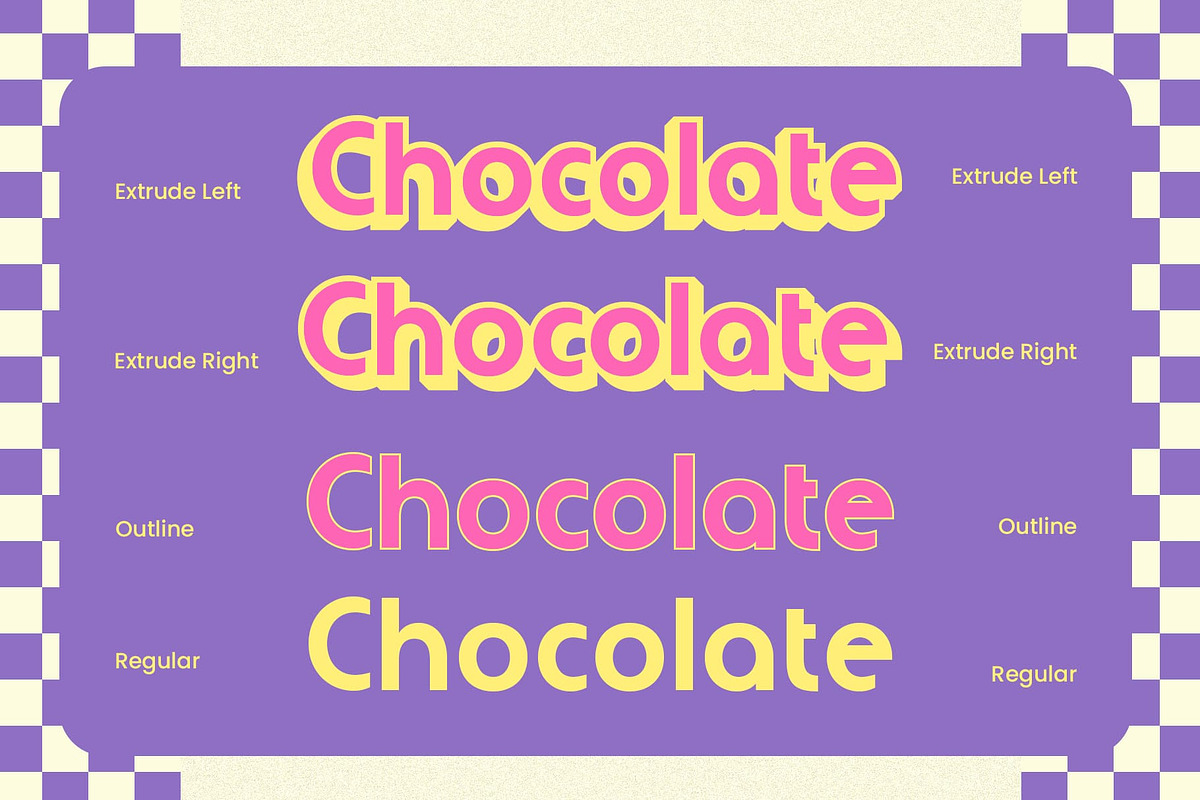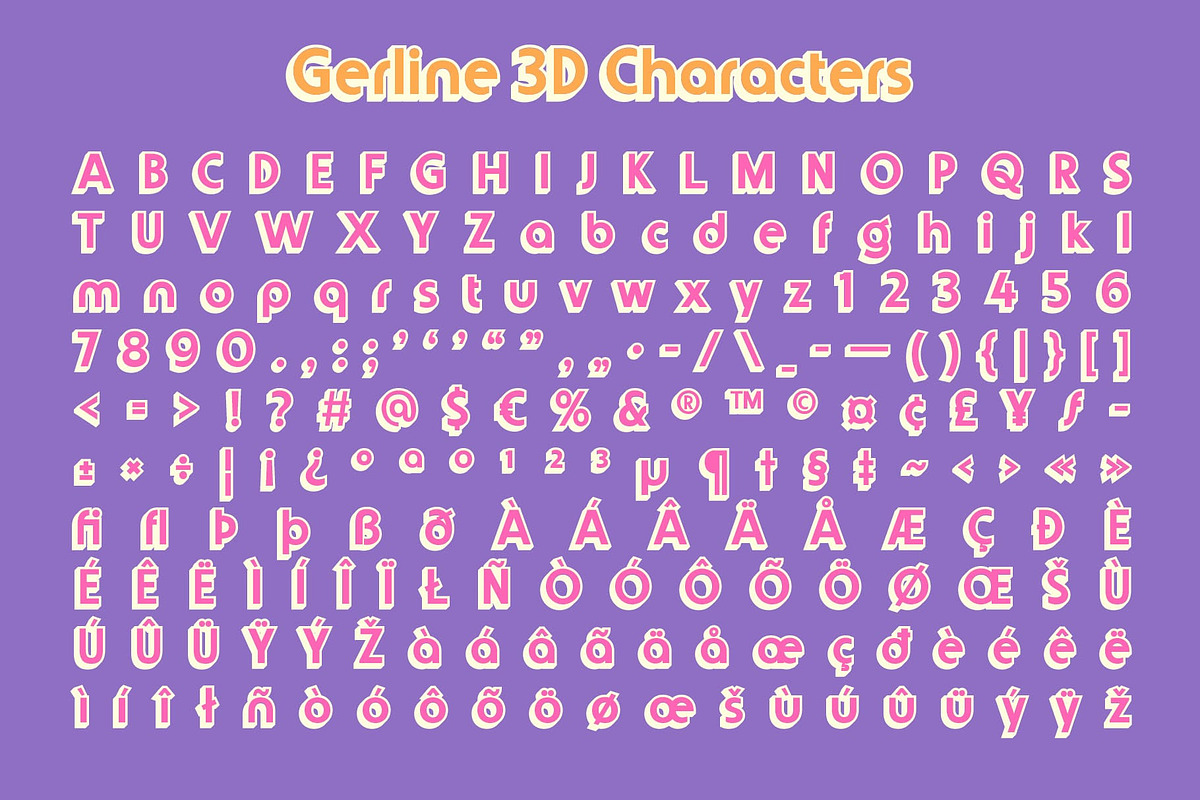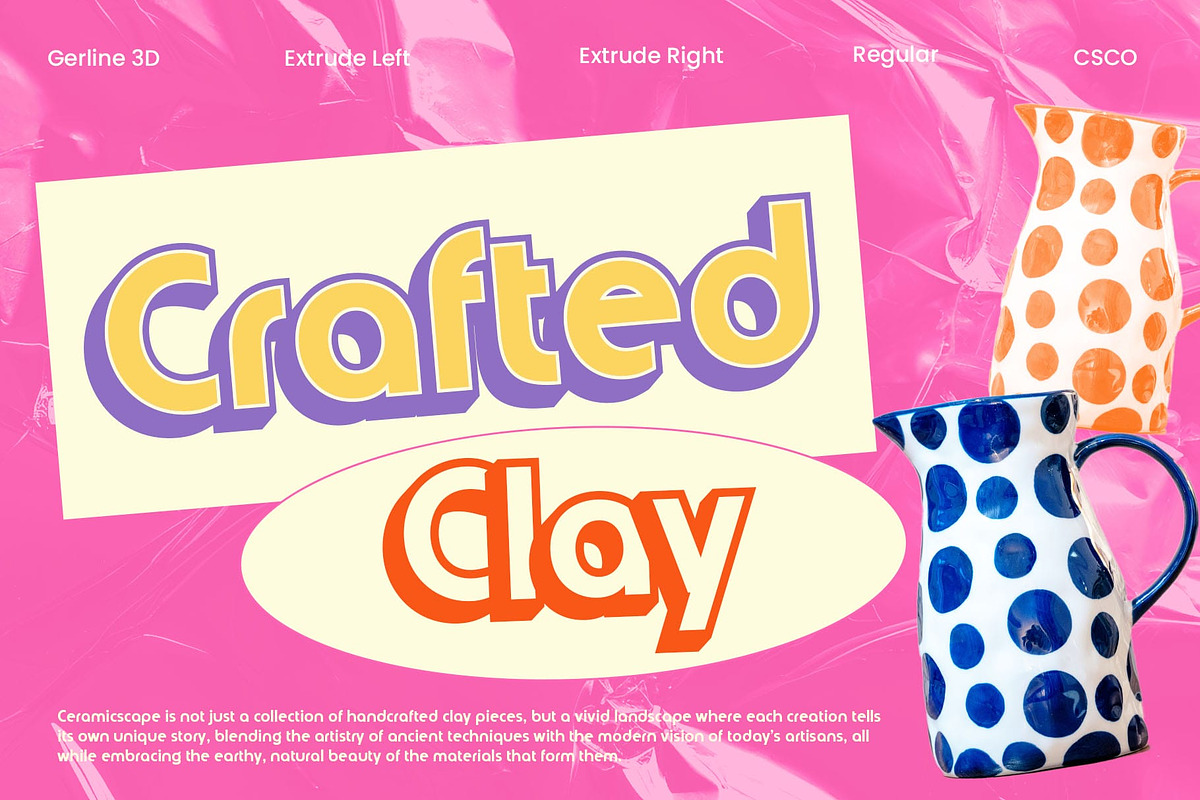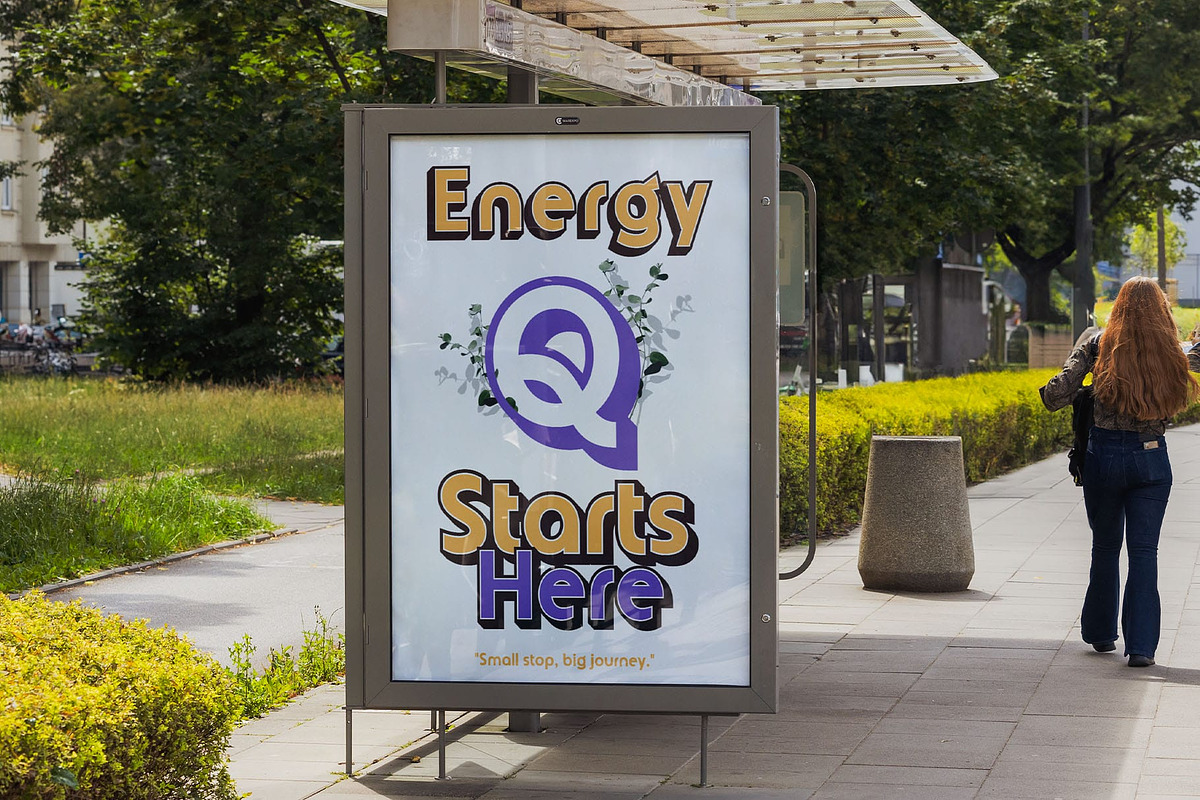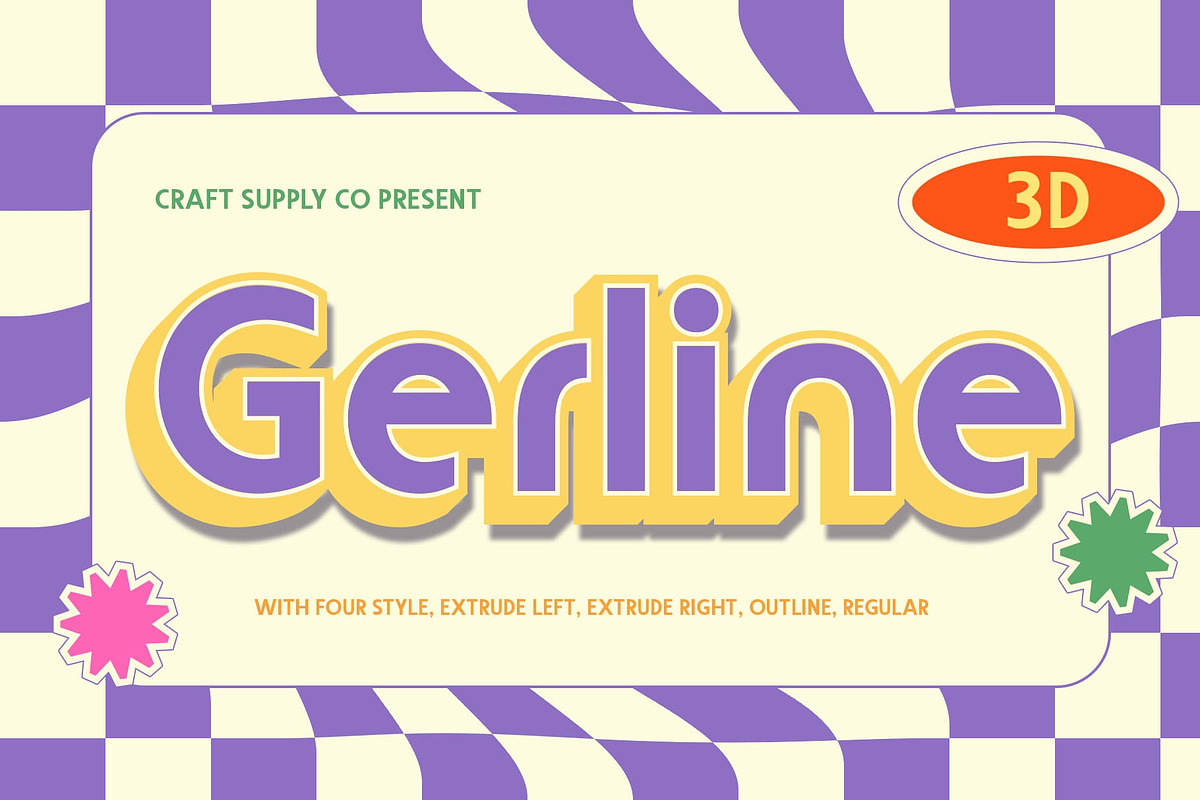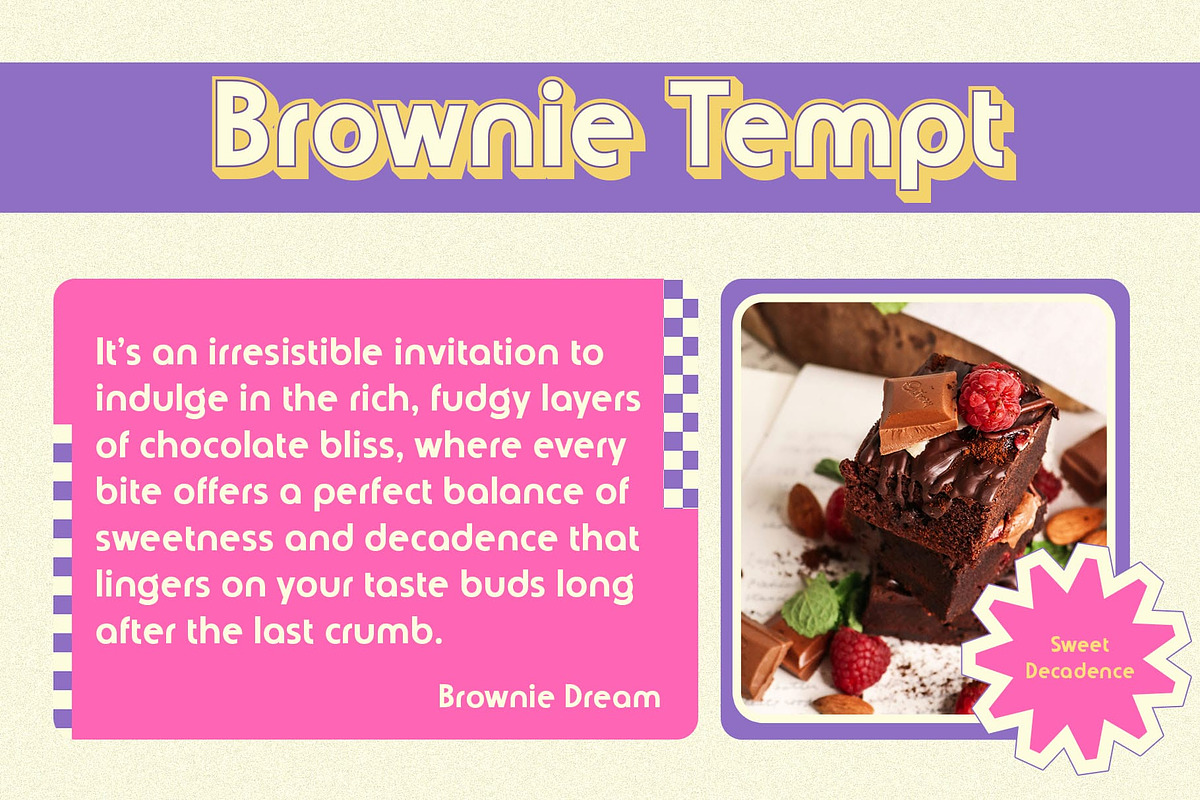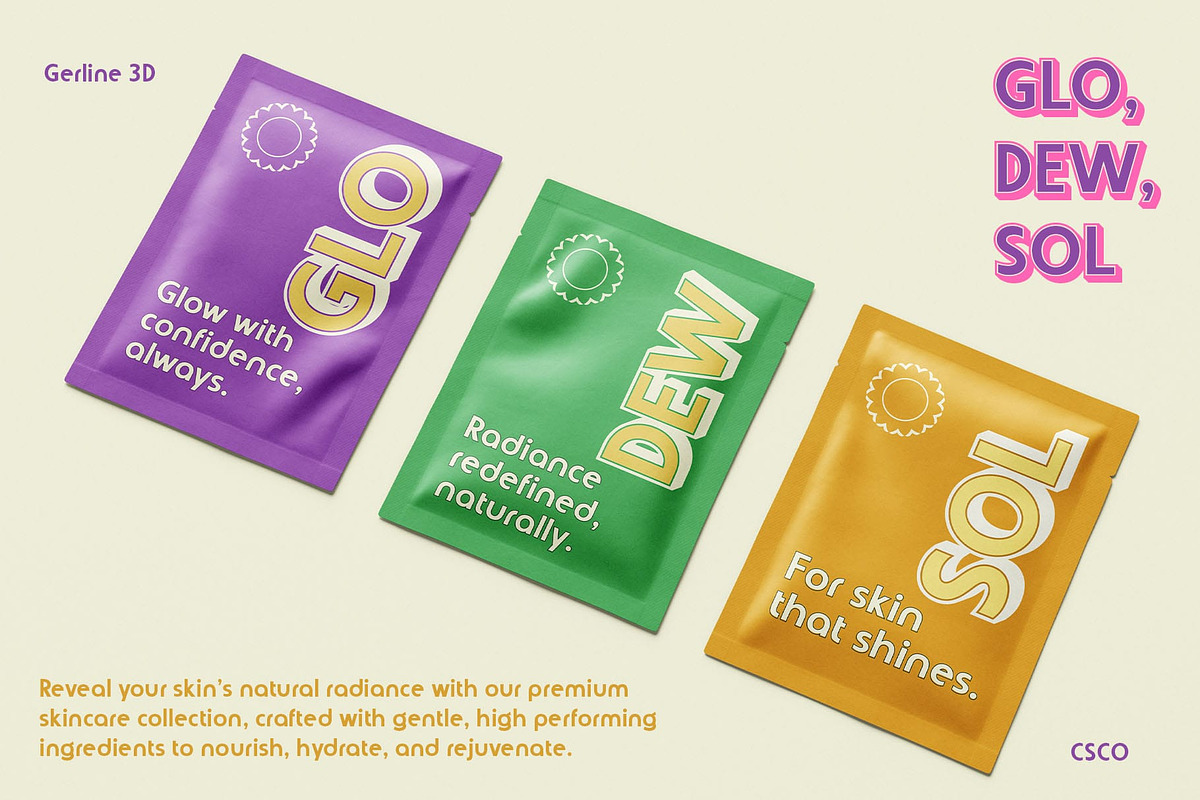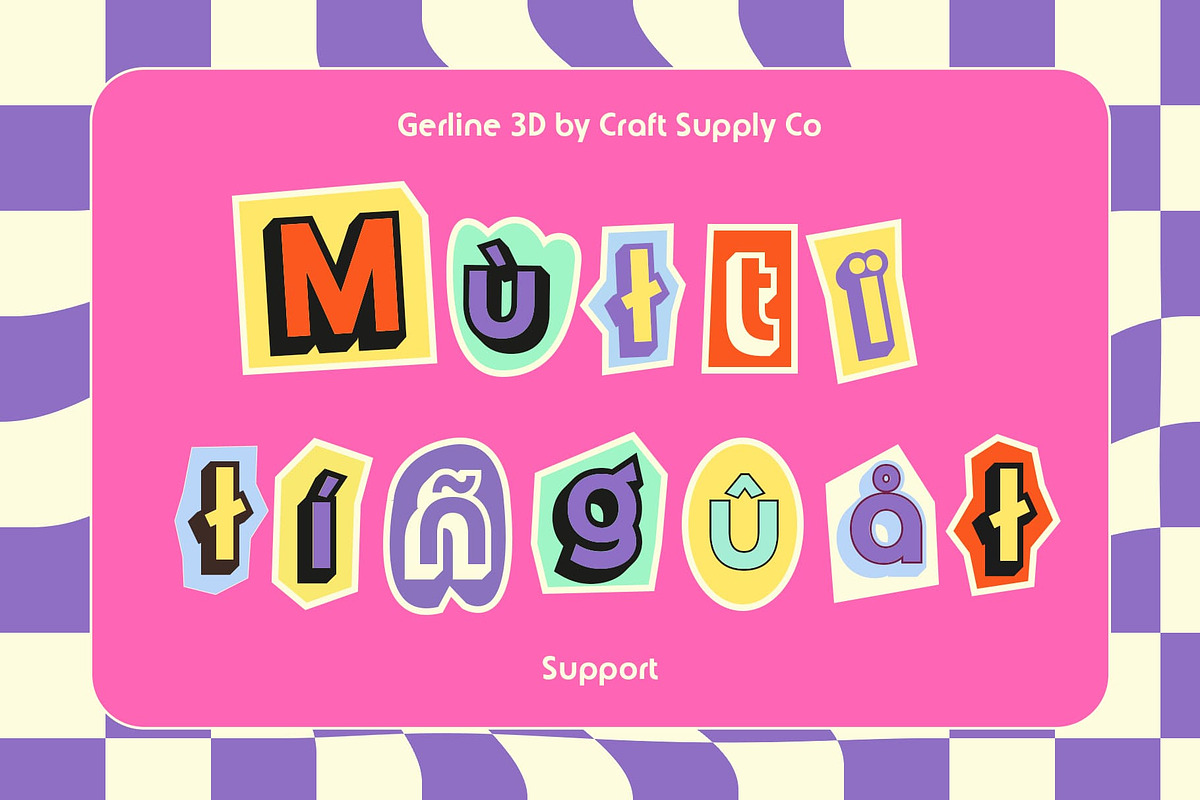
Gerline 3D
Gerline 3D Font: A Modern, Geometric Sans-Serif Font with Depth
Contemporary Geometric Design with Clean Structure Gerline 3D is a modern sans-serif font that showcases a contemporary, geometric shape. The clean lines and structured form create a minimalist yet highly trendy design, exuding a sense of precision and modernity. Its symmetrical letterforms contribute to a balanced and professional appearance, making it ideal for projects that require a sleek and stylish visual.
Dynamic 3D Effect for Visual Depth The 3D effect applied to Gerline 3D adds a sense of depth and dimension, making each letter pop off the page with striking visual appeal. The added depth enhances the geometric design, creating a dynamic, futuristic feel. This 3D element makes the font stand out, giving it a bold and innovative edge without compromising its clean, minimalist structure.
Perfect for Corporate, Web, and Promotional Design Gerline 3D is ideal for design projects that aim to make a strong, modern statement. Its contemporary design and 3D effect ensure a cutting-edge appearance, perfect for attracting attention and conveying a progressive, high-tech vibe.
A Bold Choice for Innovative and Modern Designs With its geometric precision and dynamic 3D styling, Gerline 3D is perfect for projects that require a bold, modern look. It’s a standout choice for businesses, digital content, and marketing campaigns seeking to emphasize innovation, professionalism, and futuristic appeal.
- Gerline Regular
- Gerline Outline
- Gerline Extrude Right
- Gerline Extrude Left